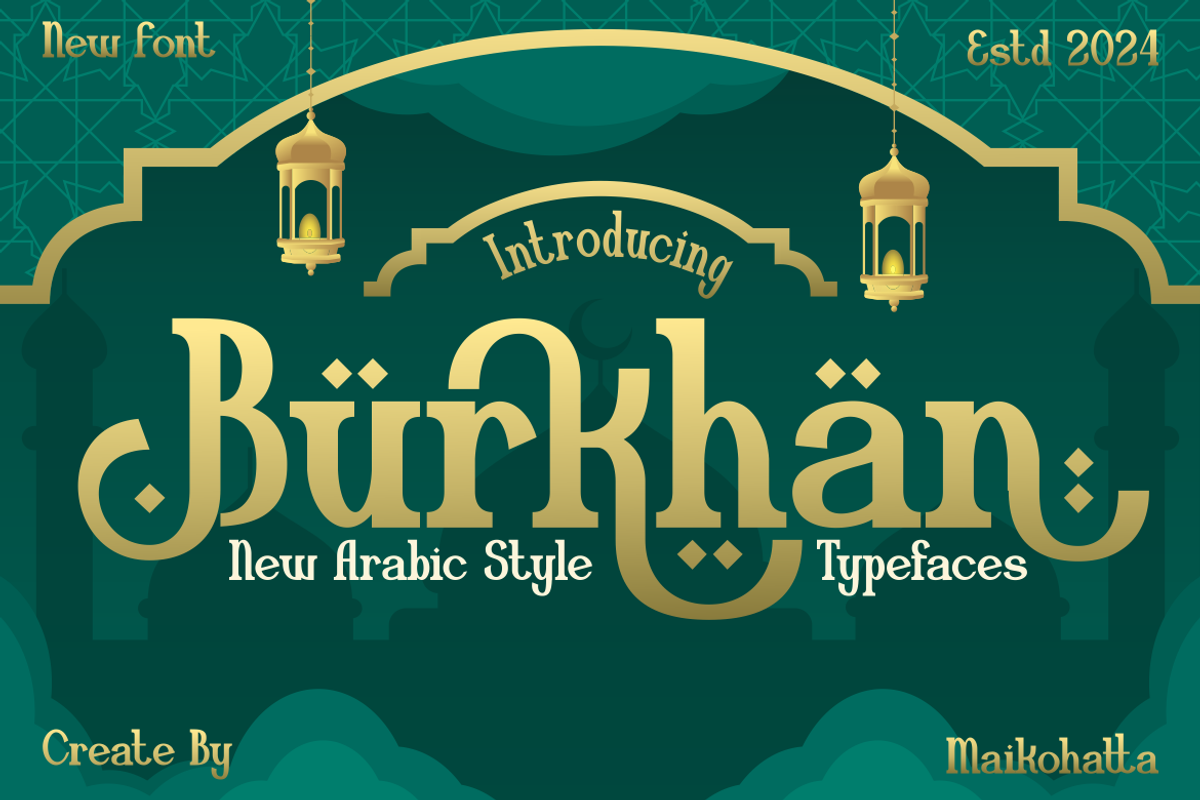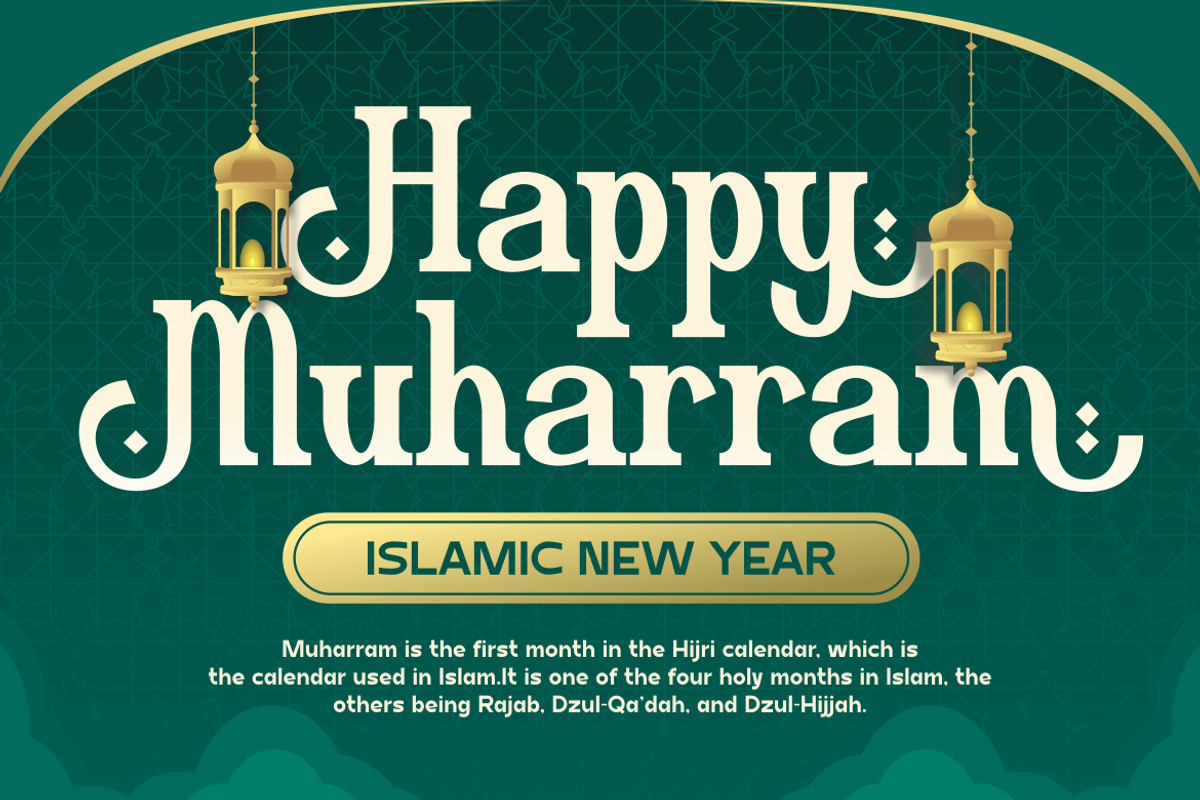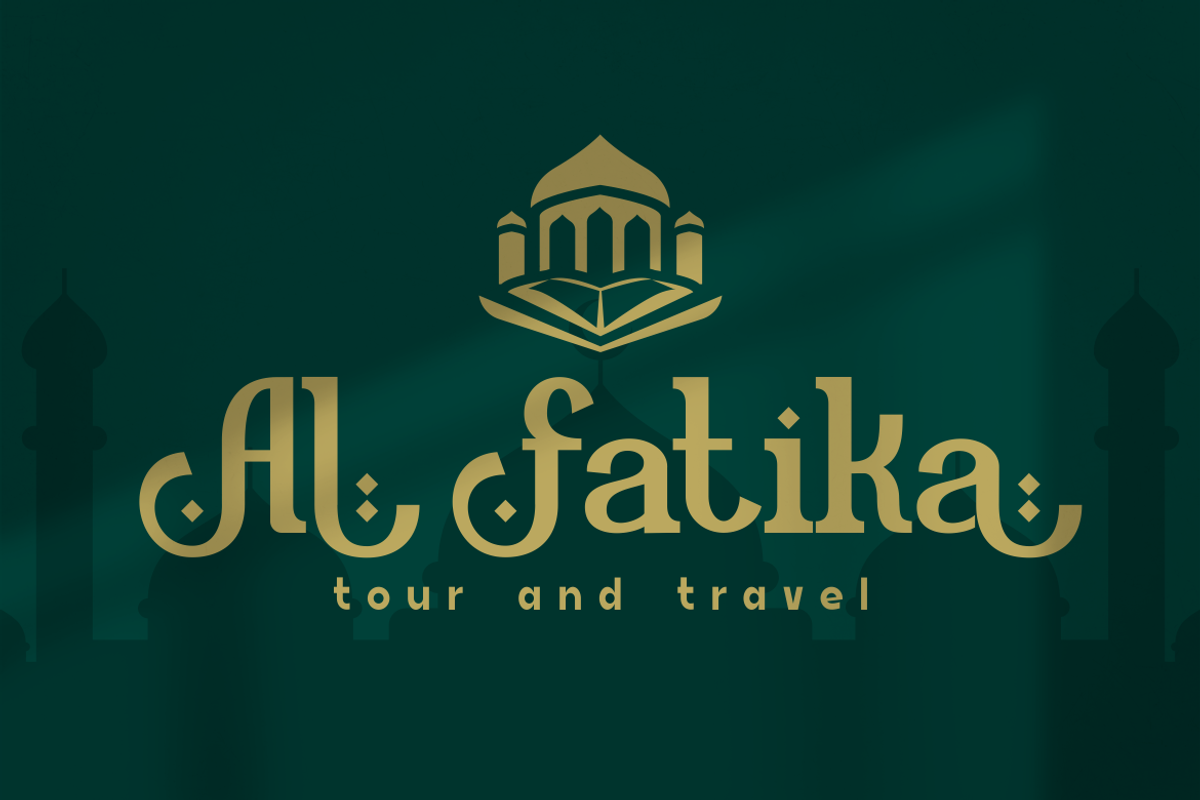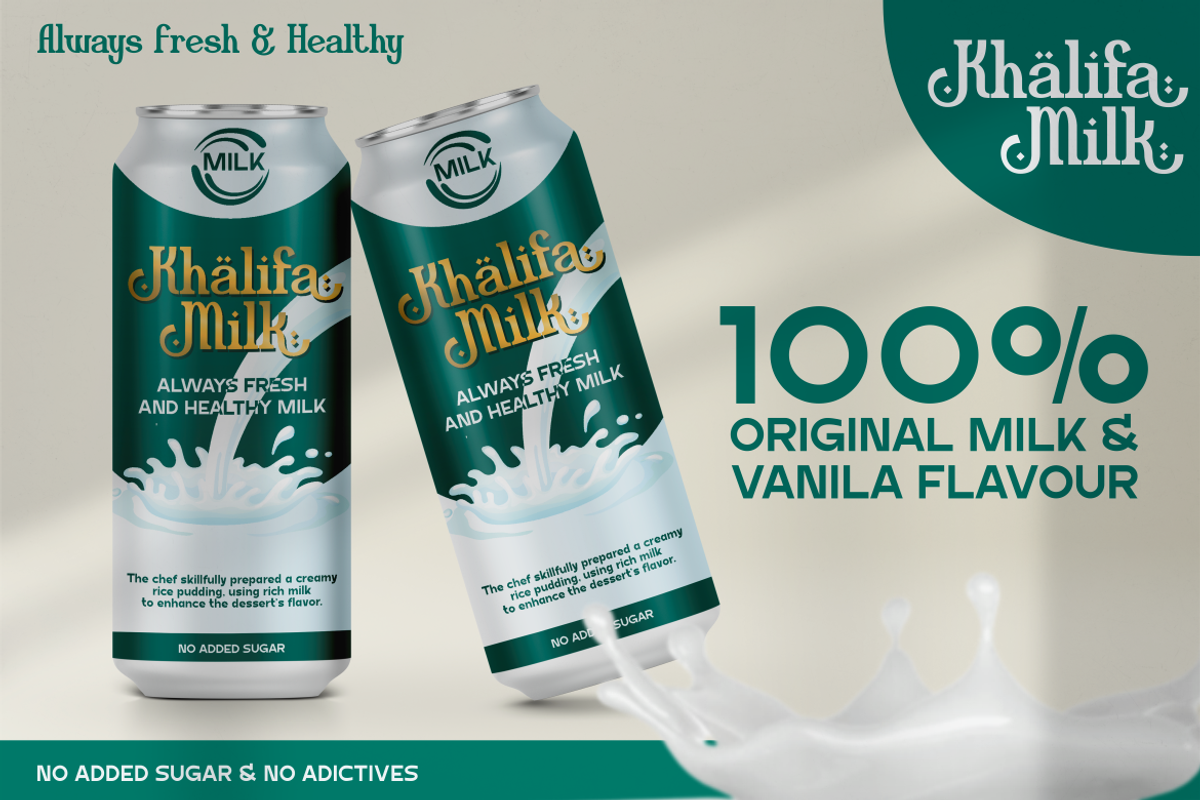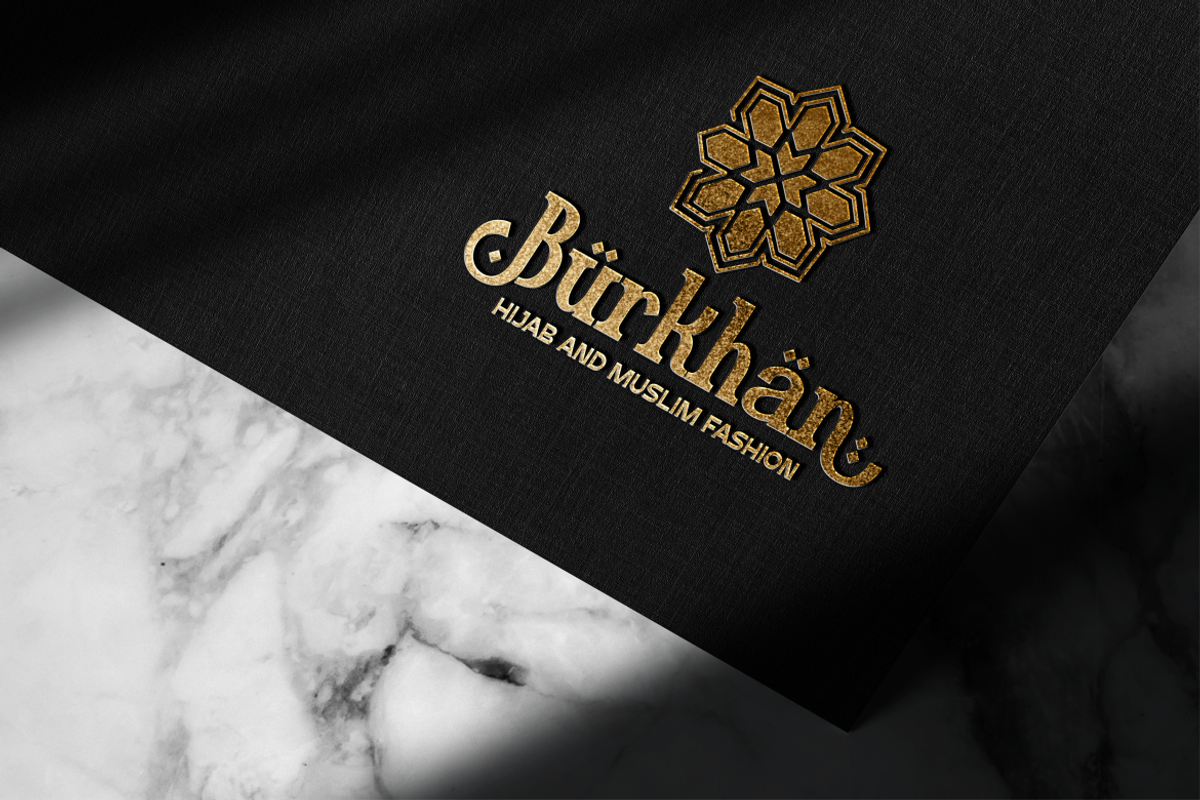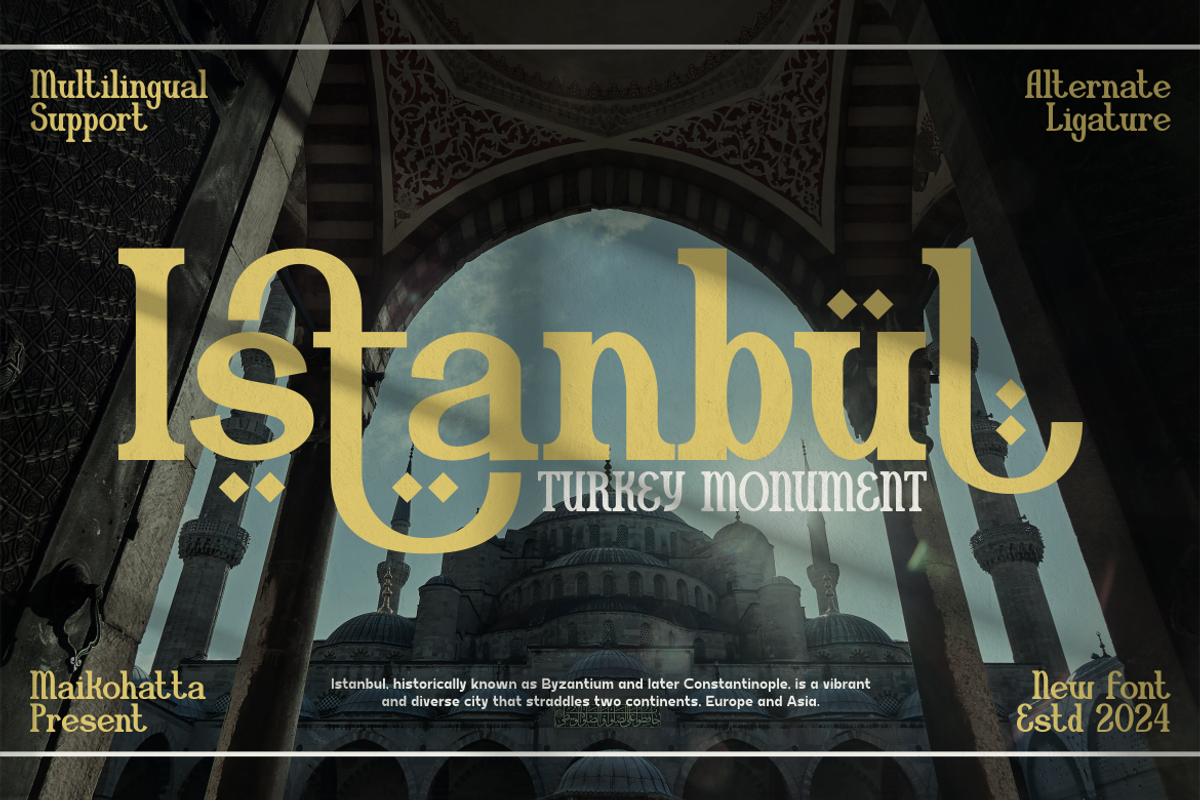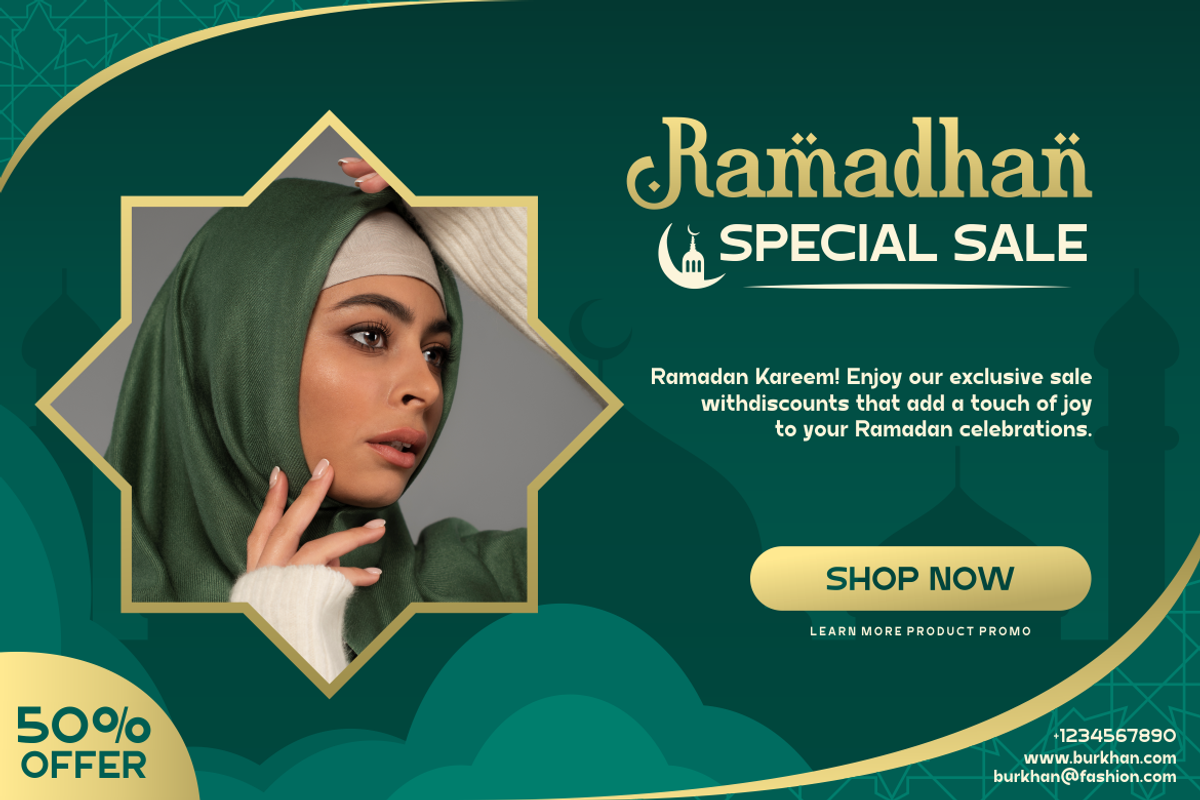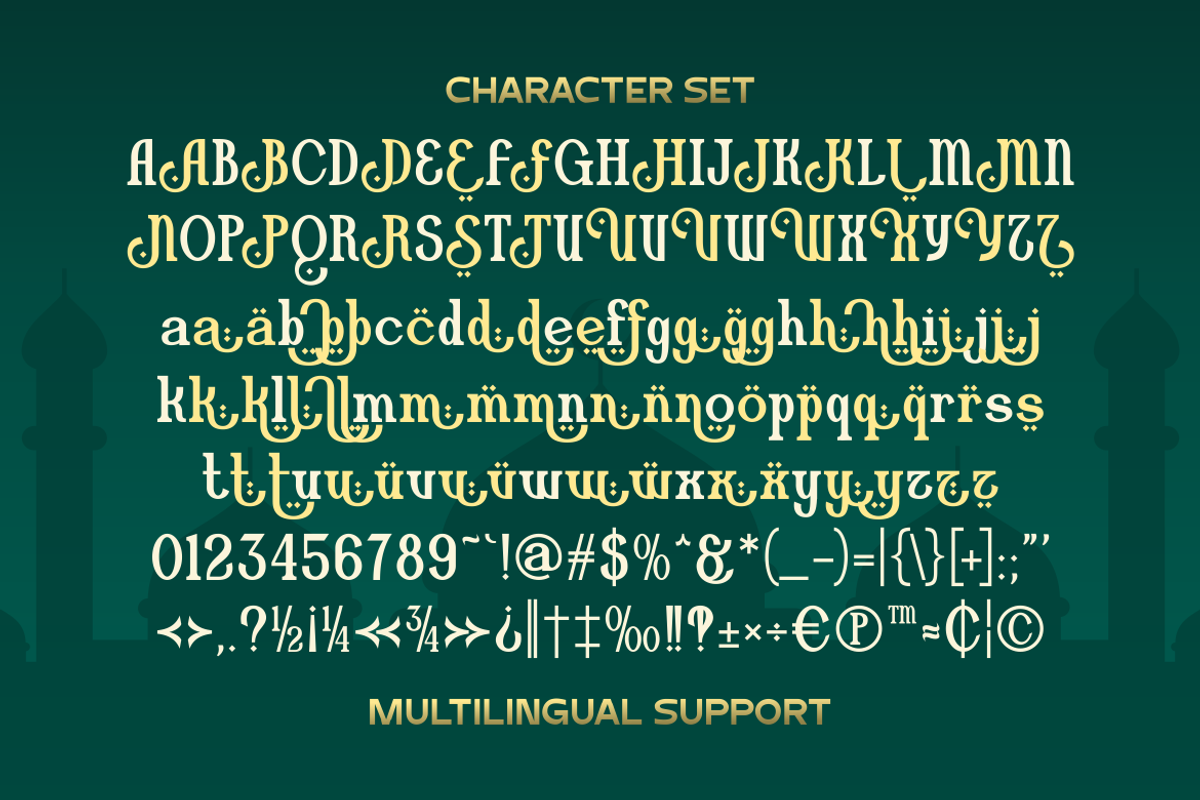
Burkhan - Arabic Style Typeface
Introducing our new product Burkhan - Arabic Style Typeface
Burkhan - Arabic Style Typeface is a bold and authentic display font. The font is suitable for any branding project like logo, Template Design, esport, and many more. outstanding in a wide range of contexts.